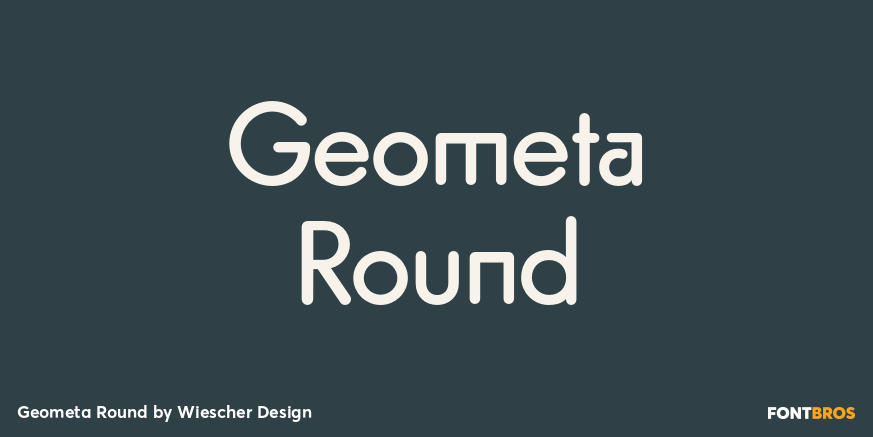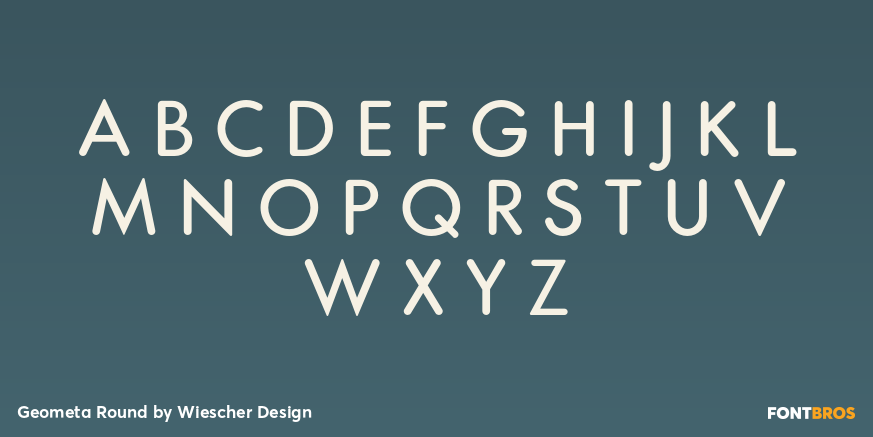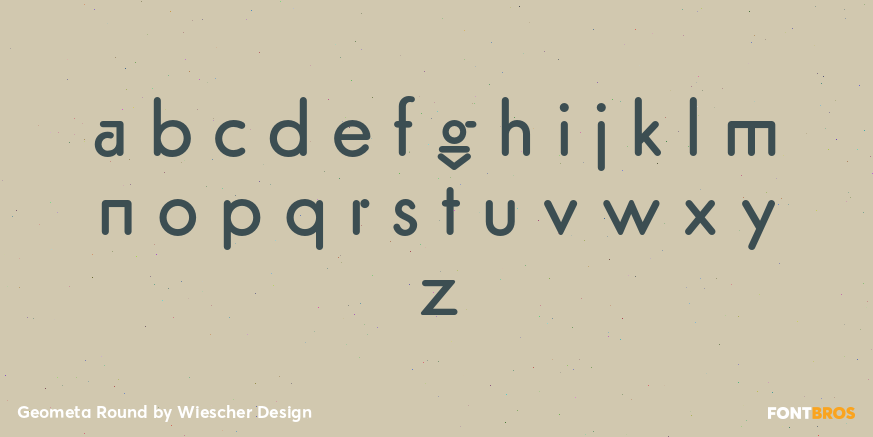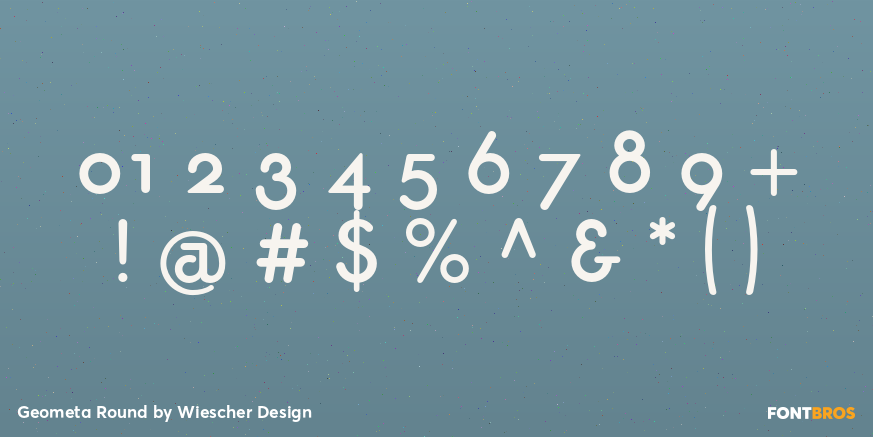
Geometa Round
Font Family by Wiescher Design
Geometa is based on Paul Renners Futura Classic, the one that he designed before he had to soften it to make it more appealing to the broad public. I thought the normal rounded fonts needed a decorative sister. Here they are!